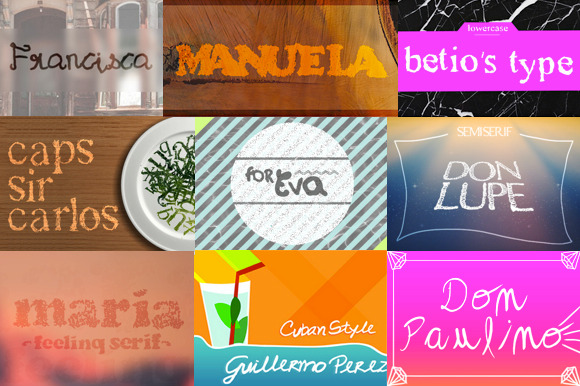
10 Handwritten fonts
All these fonts are made from the handwriting of senior citizens from Casa Caleb. Casa Caleb is a nursing home for the elderly; some of them homeless, many neglected. Four art directors scanned their handwriting and created custom typefaces that can be used on any computer. Each font is named after the artist, so their names are preserved in prosperity.